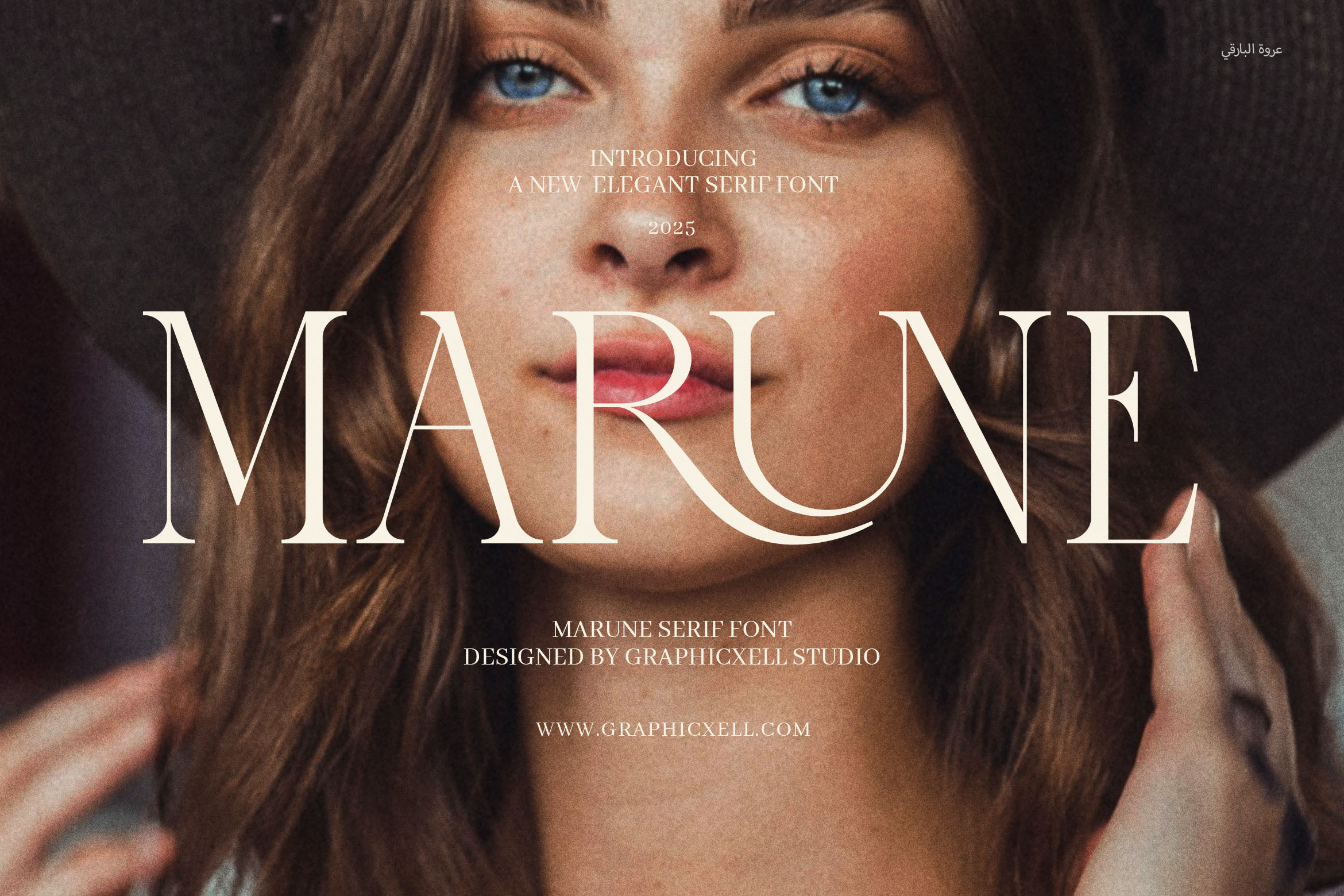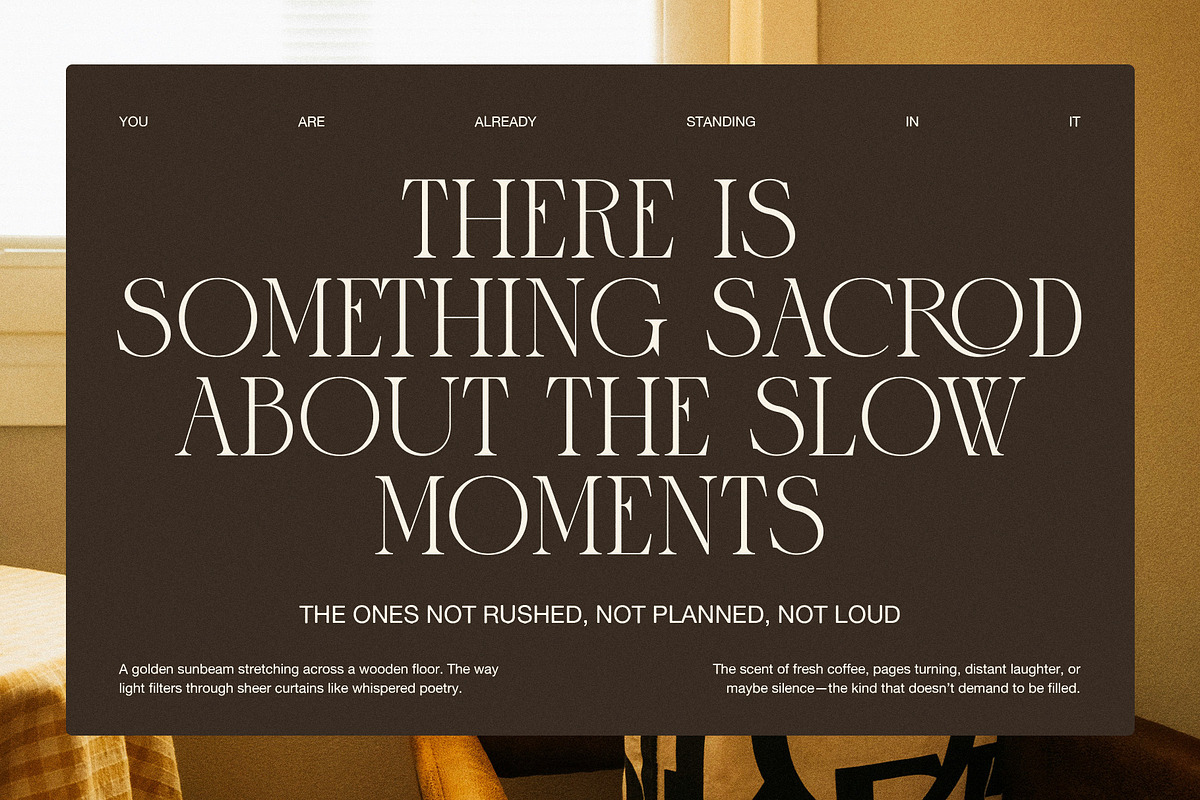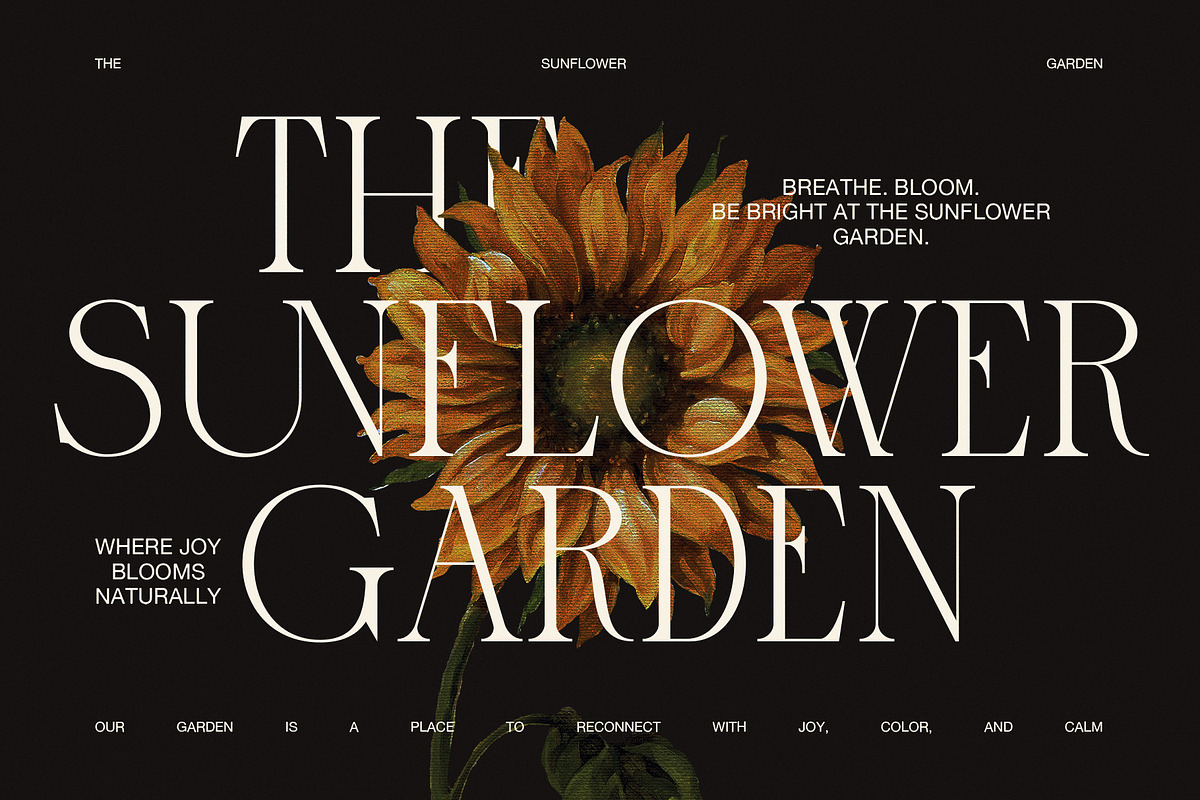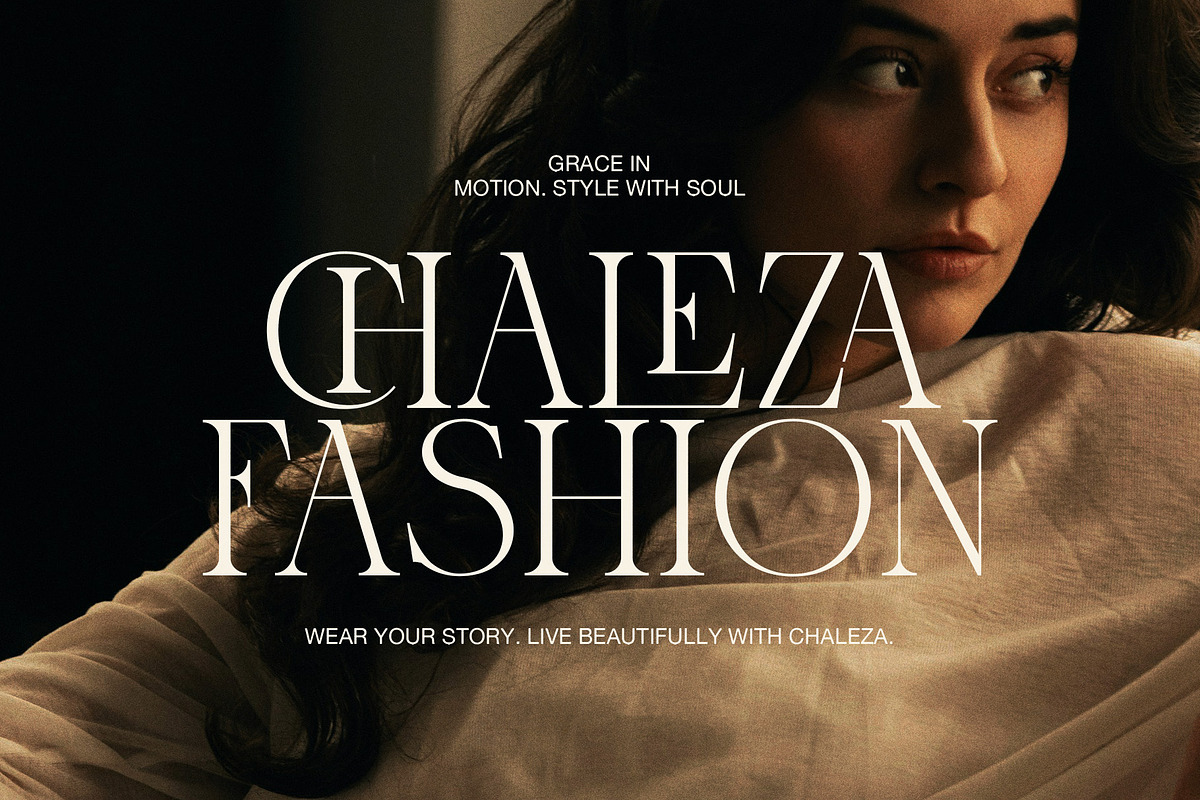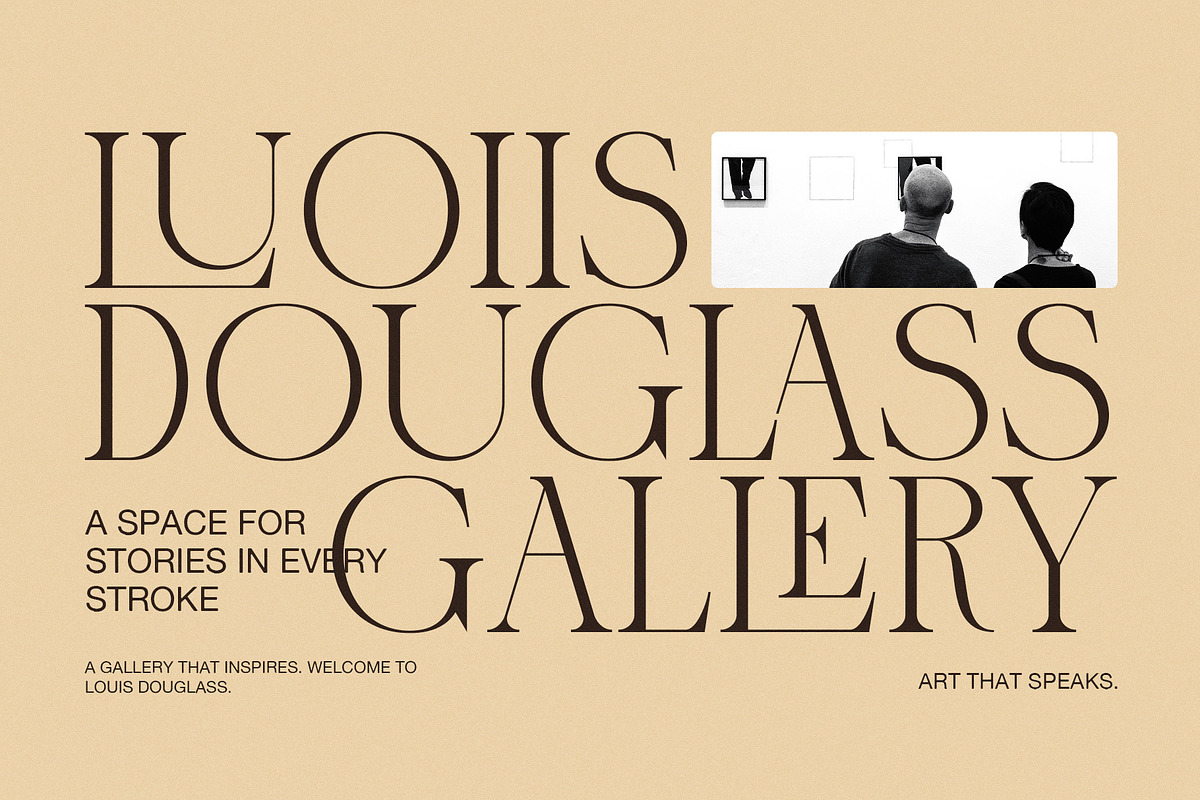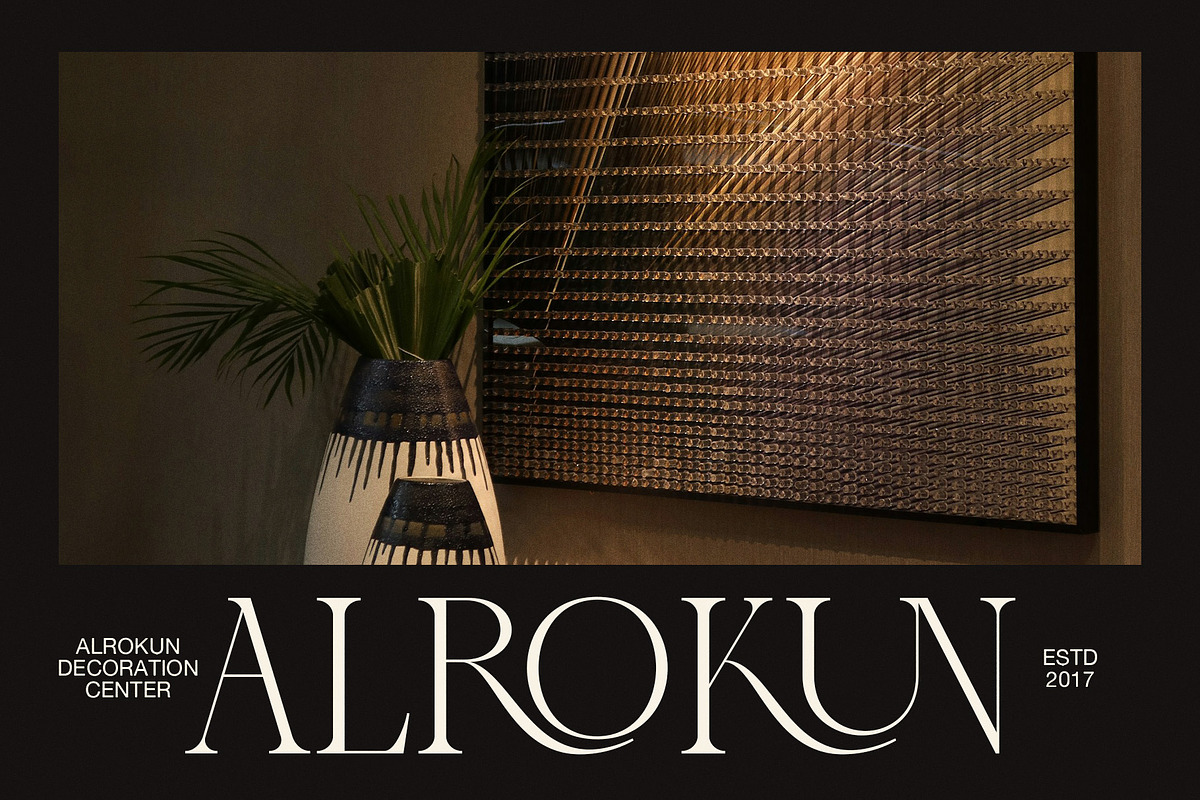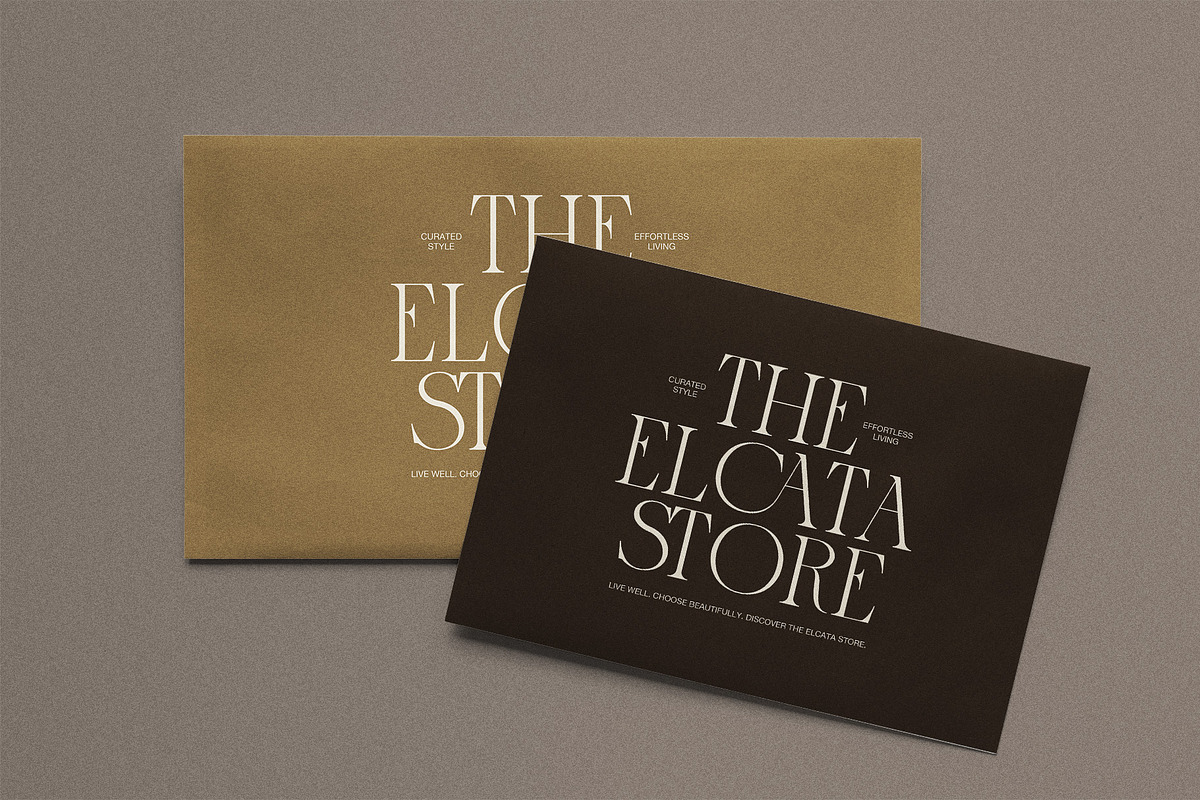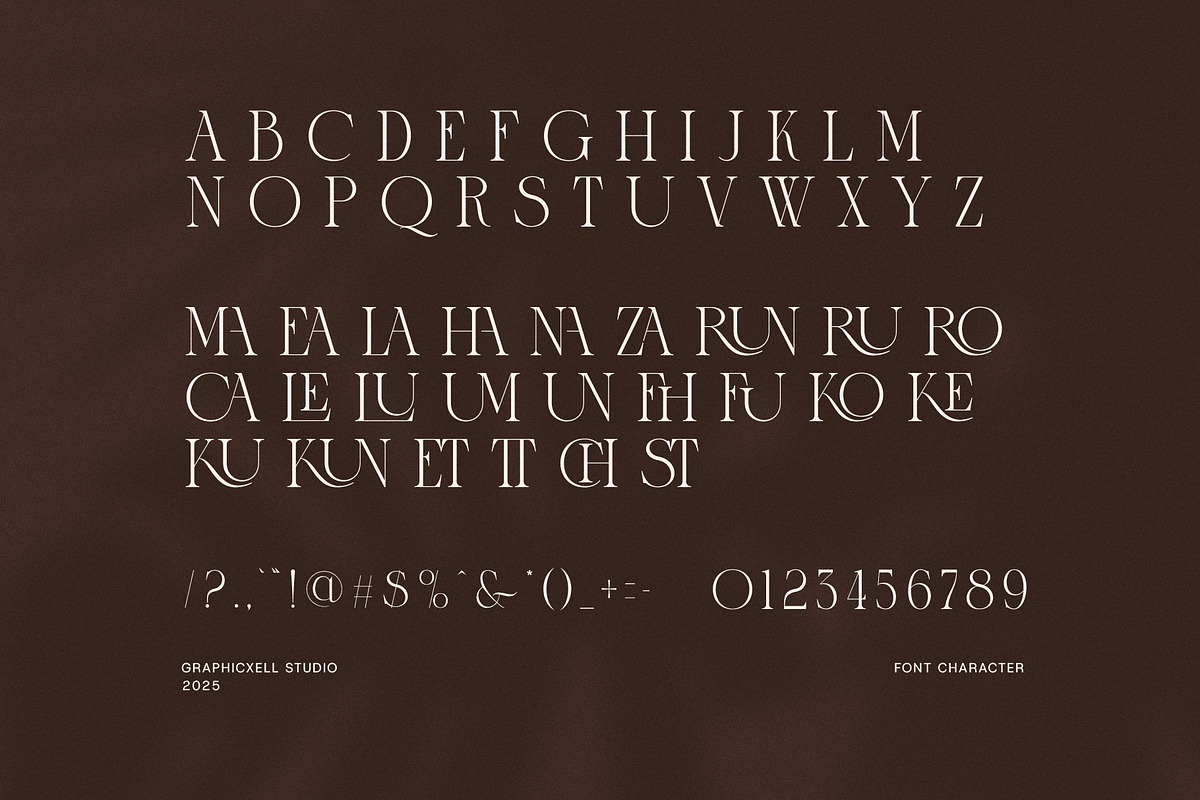
Marune Elegant Serif Font
Introducing Marune – A Modern Touch of Timeless Elegance
Step into the world of refined typography with Marune Elegant Serif Font, a sophisticated typeface that merges classic serif charm with a sleek modern twist. Designed with attention to detail, Marune captures the perfect balance between elegance and functionality, making it the ideal choice for designers seeking both luxury and versatility in one font.
Crafted for high-end visual appeal, Marune features gracefully sculpted serifs, delicate curves, and balanced letterforms that lend a touch of finesse to any creative project. Whether you're designing a chic logo, curating a stylish magazine layout, or building a luxury brand identity, Marune adds a layer of sophistication that commands attention without being overwhelming.
What sets Marune apart is its distinct character – each glyph is thoughtfully crafted to exude class and modernity. The font’s high contrast strokes and unique letter proportions create a beautiful rhythm, making it not only a visual delight but also highly legible in both print and digital formats.
Perfectly suited for luxury branding, fashion editorials, high-end packaging, and minimalist web design, Marune delivers an upscale aesthetic that elevates your design work. It's equally at home in boutique advertising, signature product packaging, or contemporary portfolio websites. Whether you’re branding a boutique fashion house, designing gourmet food labels, or creating stylish event invitations, this serif font offers unmatched elegance and professionalism.
With its refined design, Marune is ideal for:
Logotypes that require a modern, polished serif
Editorial layouts in lifestyle, fashion, or luxury magazines
Website headers and branding assets for upscale businesses
Social media graphics and influencer content that needs a classy touch
Product packaging for beauty, fashion, gourmet, or artisanal goods
Print materials, from lookbooks to business cards and brochures
In addition to its aesthetic beauty, Marune is also designed for usability. With well-balanced spacing and clean contours, the font performs excellently in both large headlines and smaller text blocks. It also pairs seamlessly with sans-serif fonts, giving you plenty of flexibility in your typographic hierarchy.
From boutique branding to contemporary advertisements, Marune has the charm and finesse to adapt to various design moods while maintaining its distinctive personality. If your creative vision demands a font that is both expressive and timeless, Marune Elegant Serif Font is the perfect choice.
Make your design projects stand out with Marune – a modern serif typeface that embodies elegance, style, and the essence of luxury.